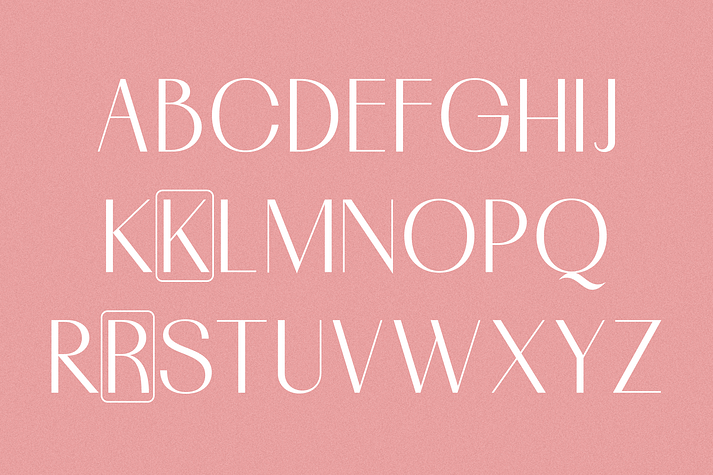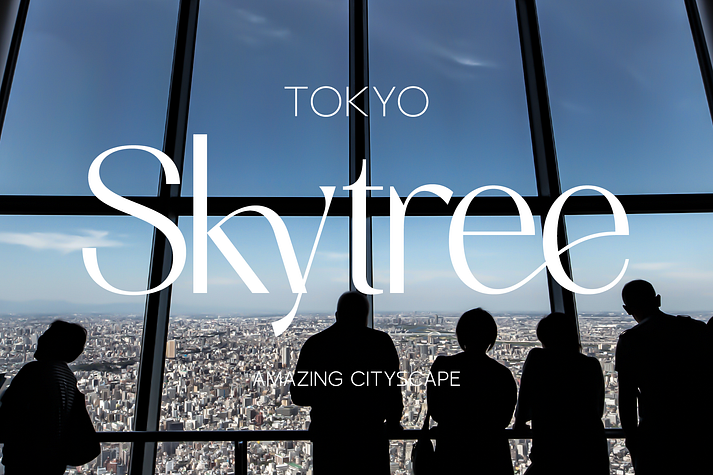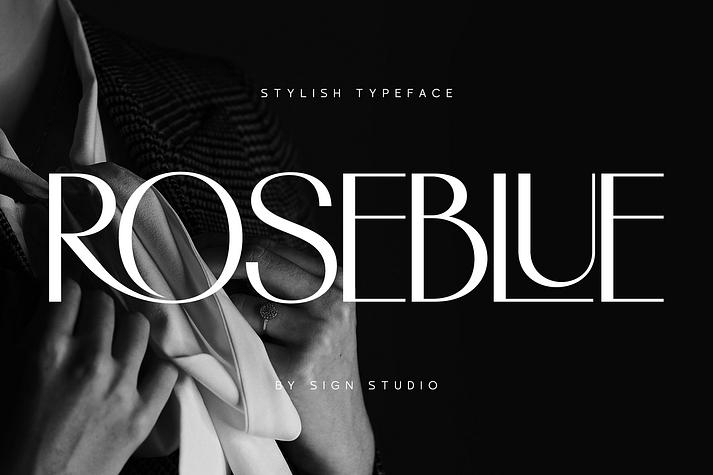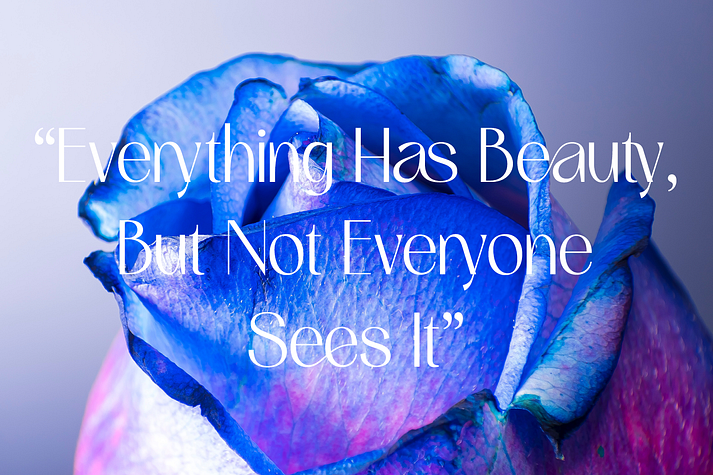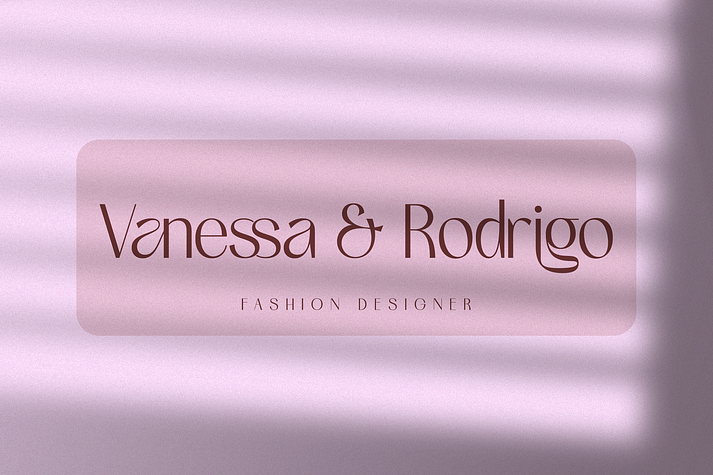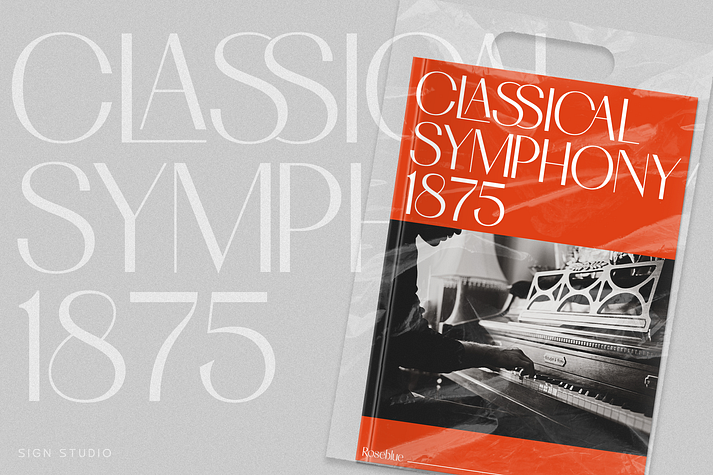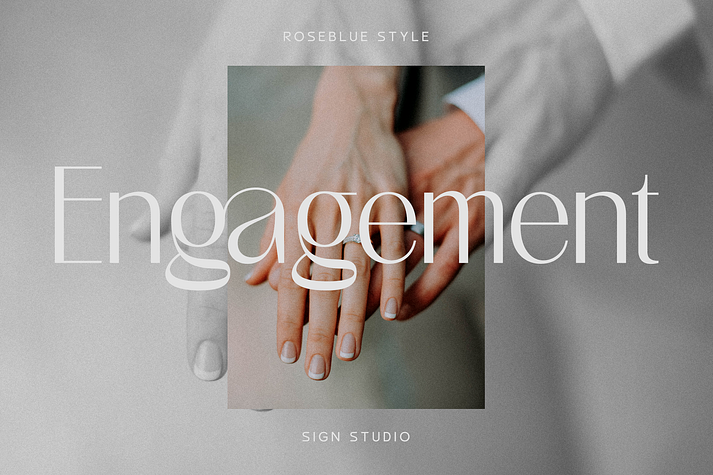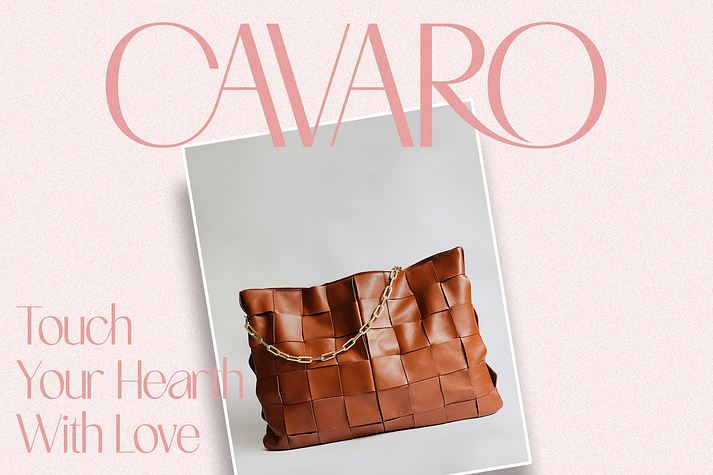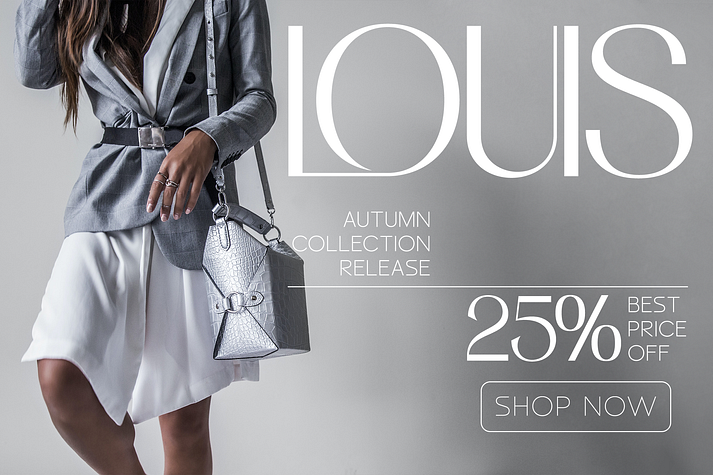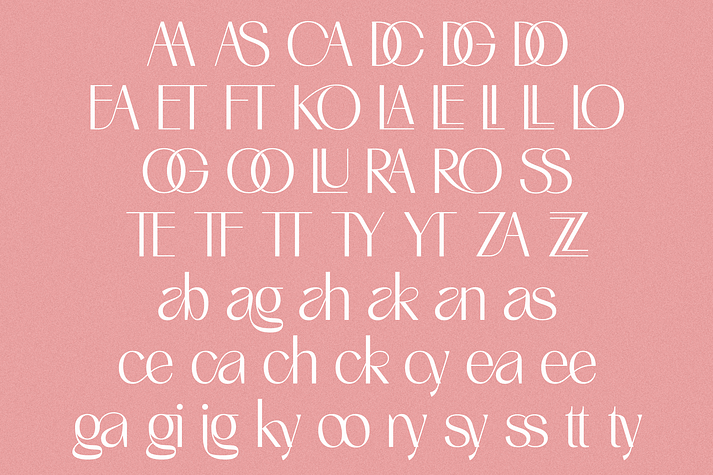
Roseblue
Roseblue is a sans serif font family published by Sign Studio.
Roseblue is a font that was built in a modern style. Has a smooth appearance on each side. The opentype feature is very helpful in the design process. Equipped with adequate alternative characters and ligatures will provide choices for designers. It is suitable for product branding, logotype, quote, and various other printed products.